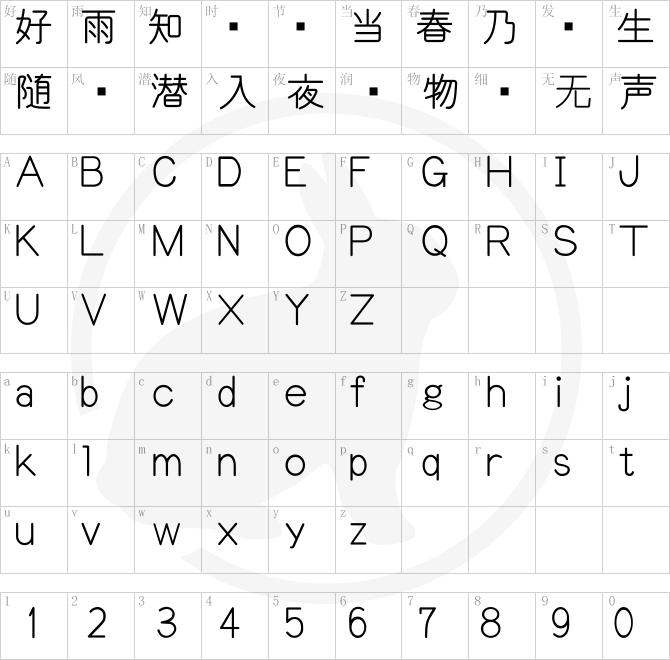
- Font Name:和田研中丸ゴシック2004P4
WadaLabChuMaruGo2004P4.ttf is a very beautiful artistic font, WadaLabChuMaruGo2004P4.ttf is widely used in the design and printing of various books and pictures,WadaLabChuMaruGo2004P4.ttf has a strong visual impact,WadaLabChuMaruGo2004P4.ttf is a commonly used font in newspapers, magazines and books, and is used in posters, e-commerce Poster design, store design, logo design, font design and other fields.WadaLabChuMaruGo2004P4.